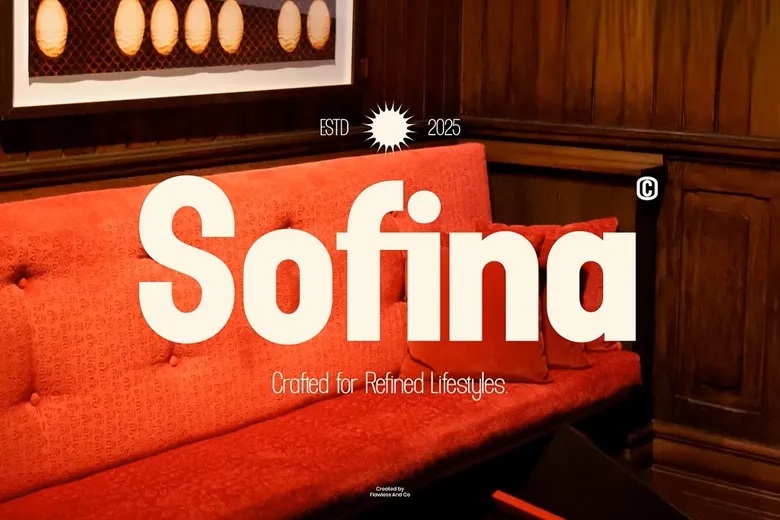
Sofina Font
Sofina is a contemporary, sans-serif typeface with elegant simplicity and clean geometry. With curvy lines, proportions, and a modern appeal, Sofina provides a work-life balance effect that produces professional and luxury in both digital and print designs.
The simplicity of the design and simplicity of minimalism offer Sofina the best chance to produce powerful visual effects without losing clarity.
Sofina Sans Serif Font